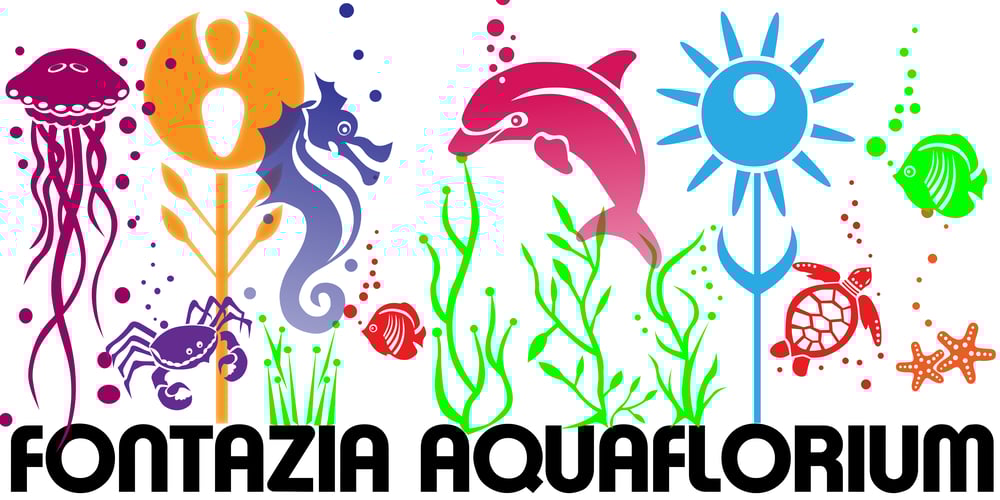
Fontazia AquaFlorium
Fontazia AquaFlorium font
Fontazia AquaFlorium Font Family was designed by Denise Koehler and published by Deniart Systems. Fontazia AquaFlorium contains 2 styles and family package options. Fontazia AquaFlorium is a new addition to our Fontazia series, featuring an assortment of flowers and aquatic accents inspired by the idea that not only sponges can live at the bottom of the sea, flowers can too. When in need of aquatic accents or modern floral decorations, this combination of dingbats are sure to do the trick. Like other type, you can easily add them to any text document or if splicing and dicing artwork is your game, these will add a little pizzazz to all your designs.